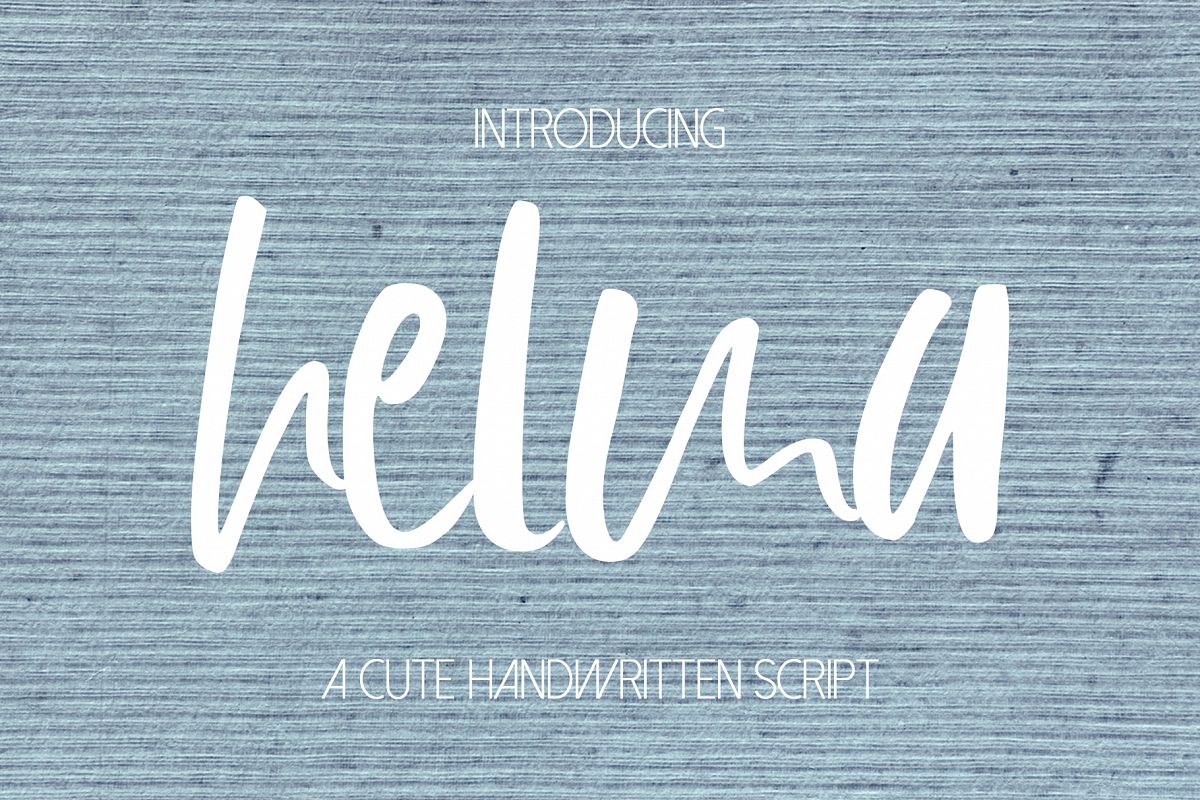
Helma Font
Introducing Helma, a cute elegant script.?
Perfect for any graphic and logo designs, wedding and birthday invitations.
Helma font contains uppercase & lowercase characters, numbers and punctuations with some ligatures.